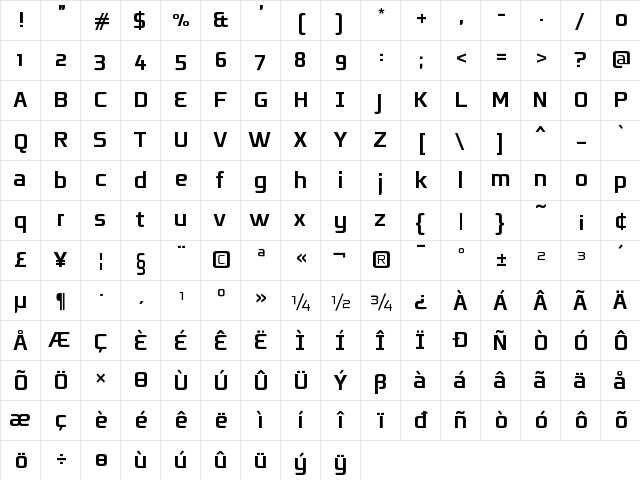
Complete Resea Bold glyph index. Displaying only characters natively supported by Resea Bold font.
Resea is a composed and adaptable typeface that performs quietly and consistently across a wide range of design contexts. Its bold stroke weight gives it real presence on the page.